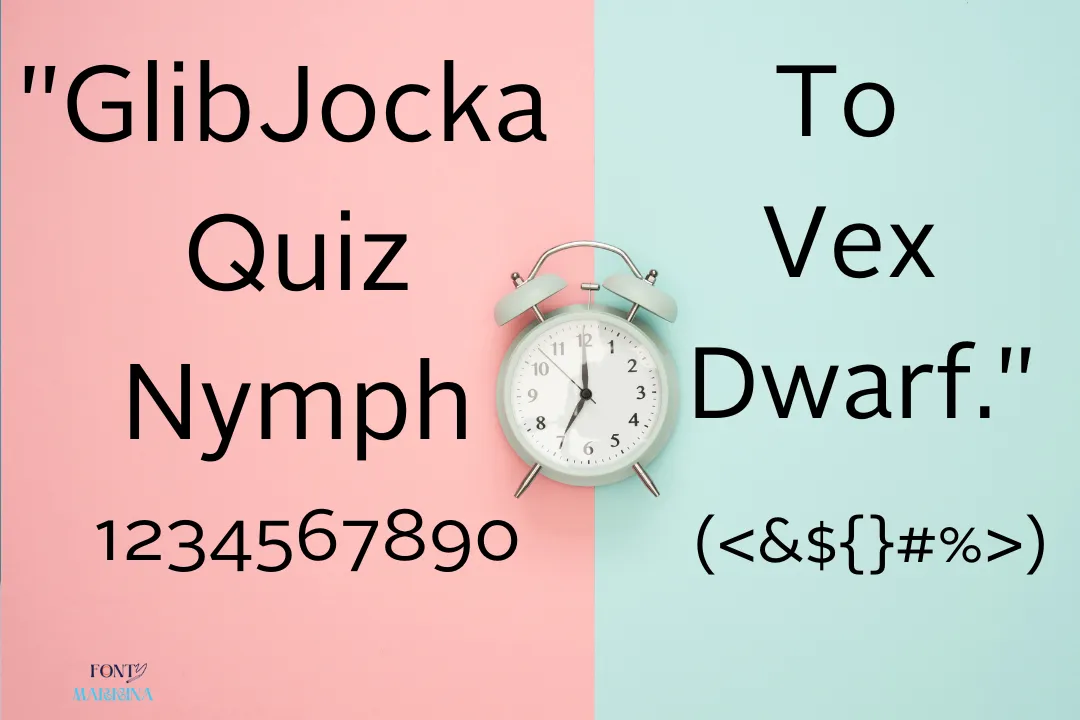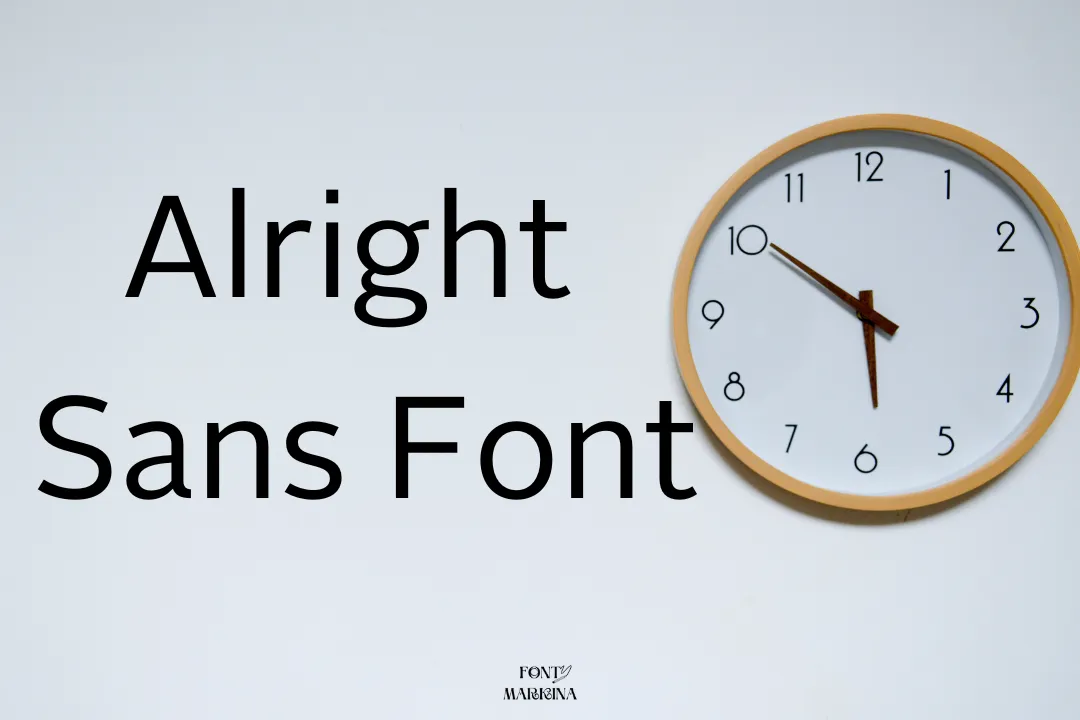
Alright, Sans Font was designed by Jackson Cavanaugh and in 2009, discharged through Okay Type foundry. It is a stylish sans-serif texture family. The Alright Sans is a very adaptable typeface because it has a large selection of available weights and tiny capitals for each weight and italic style.
It has an amazing pairing grade. You can connect it with multiple font styles, like nimbus fans font. It is available in numerous glyphs and characters such as uppercase, lowercase letters, numeric, and some other special structures.
Uses of Alright Sans Font
You can use the alright sans font for multiple tasks and projects because it has a neat and clean texture look appearance for the viewers. This family is used for a wide range of designing tasks and functions in corporate sectors and other government-level departments.
You can be used it with FF din font and get the chance to improve your project readability. It is very suitable for making social media posts, logo designs, posters, advertisements, marriage card designs, newspapers, and much more.
- Magazines
- printings
- Youtube thumbnails
- illustrator
What font is most similar to Alright Sans Font?
The closest font of this amazing and unique typeface is arciform sans font. It has a very neat texture and is perfect for multiple projects.
What type of font is Alright Sans Font?
It is a trendy sans-serif texture family. It is a very adaptable typeface because it has a large selection of available weights and tiny capitals for each weight and italic style.
Who is the designer of Alright Sans Font?
In 2009, It was designed by Jackson Cavanaugh and, discharged through Okay Type foundry.